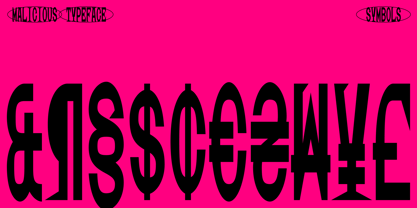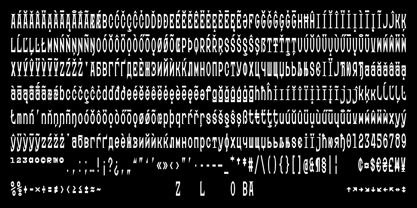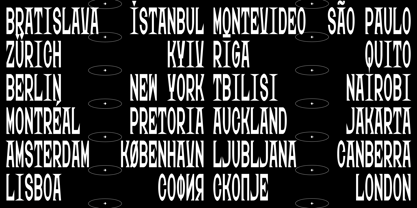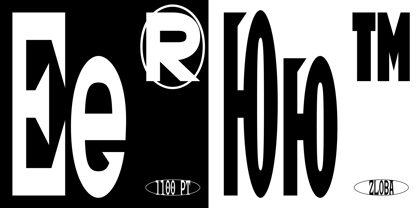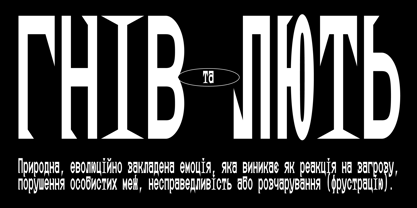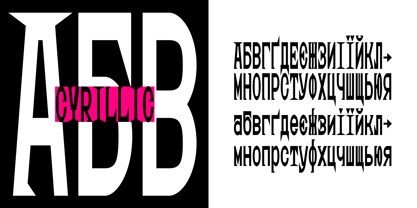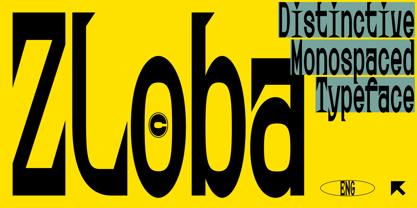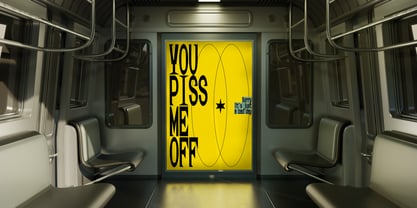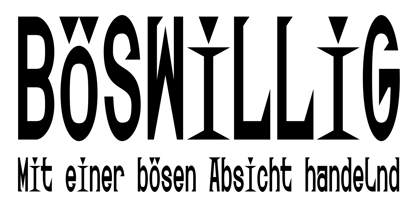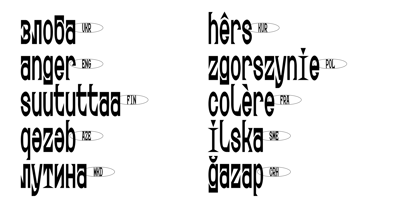
Zloba
Zloba (ukr. Злоба) means Malice. Sharp, condensed, and unforgiving. Zloba is a display monospace typeface that combines high-contrast strokes with aggressive triangular geometries. With its wedge serifs and piercing diacritics, it evokes a feeling of tension and modern gothic aesthetics. Use Zloba for bold statements, distinctive streetwear identities, or experimental web design where the typography acts as the main image.